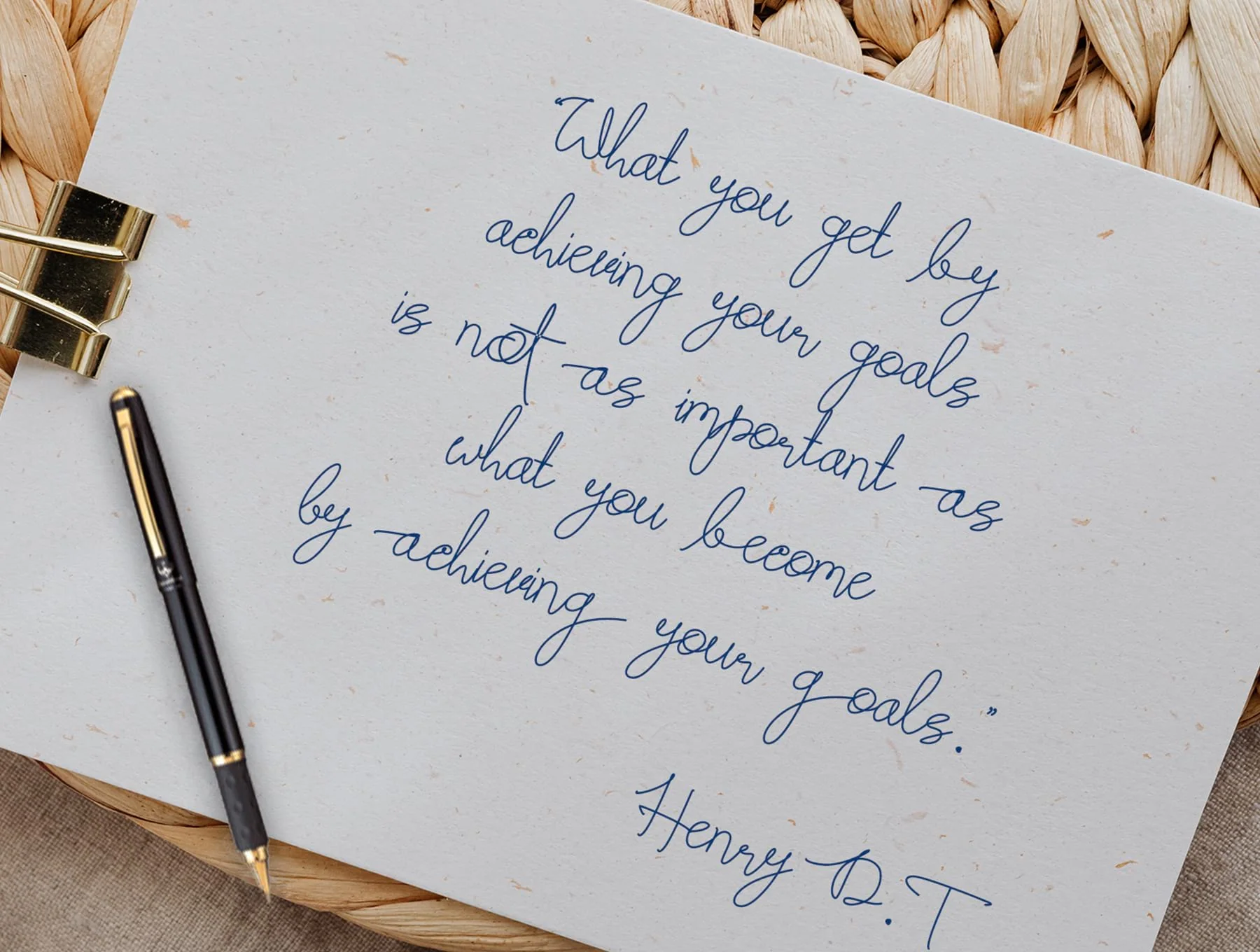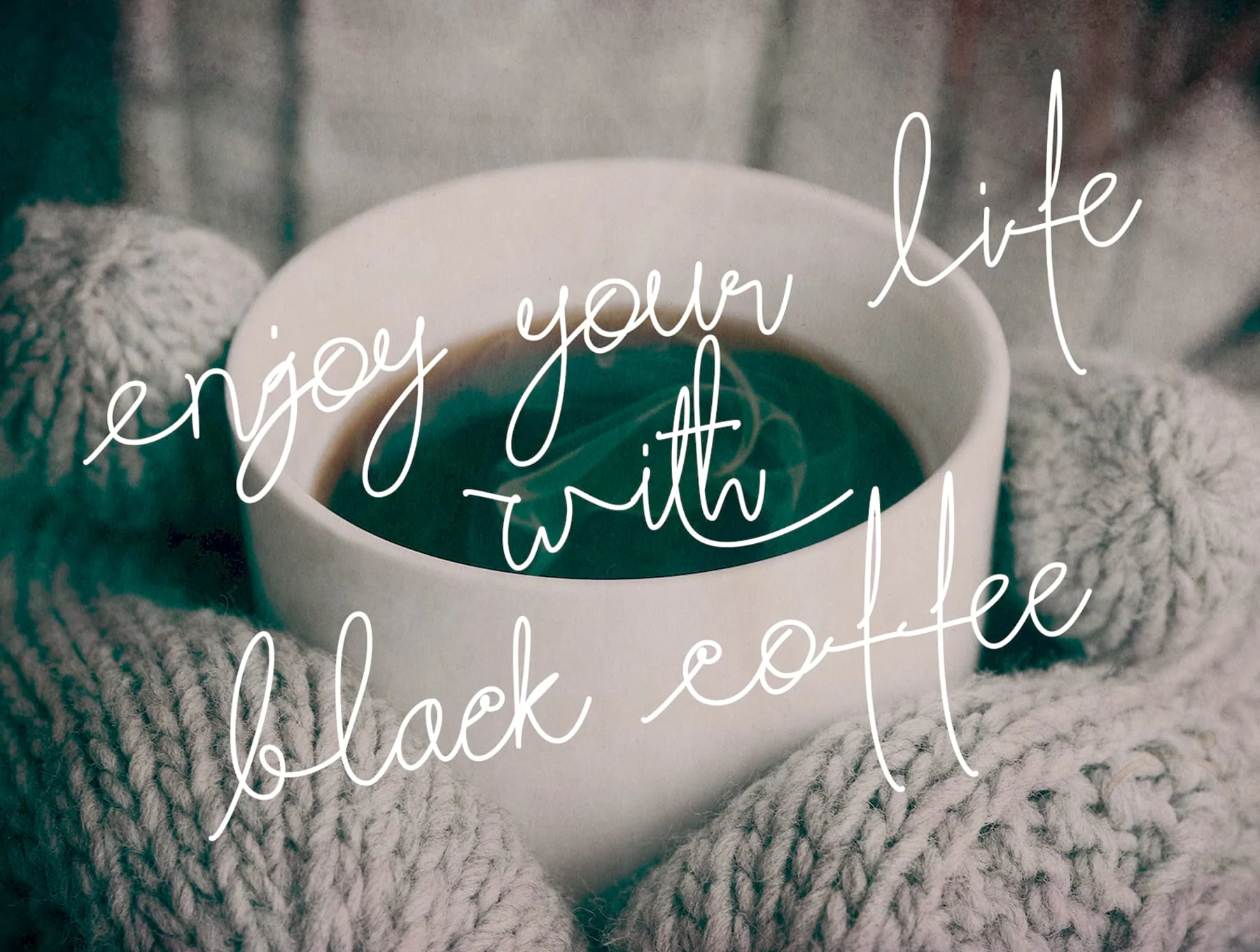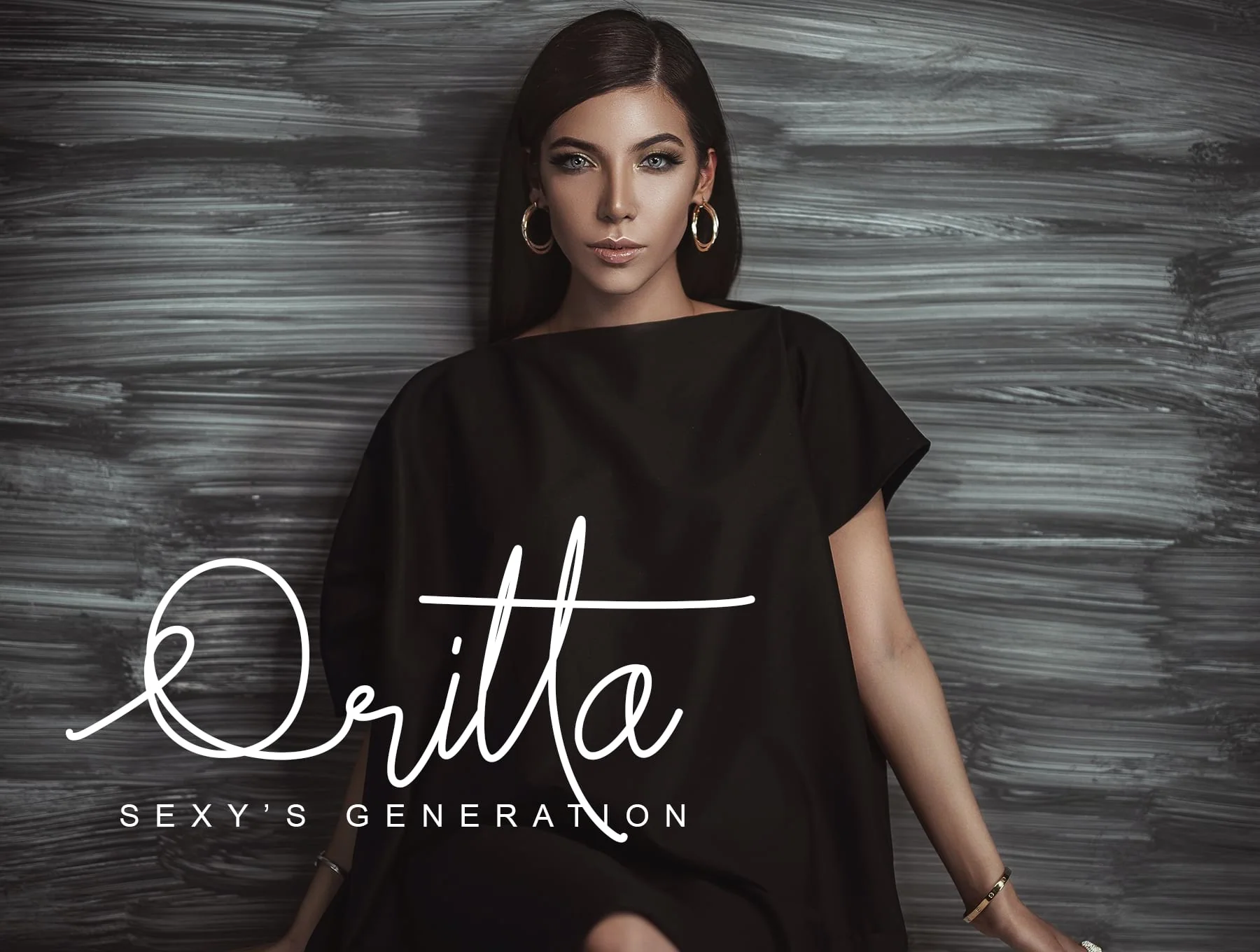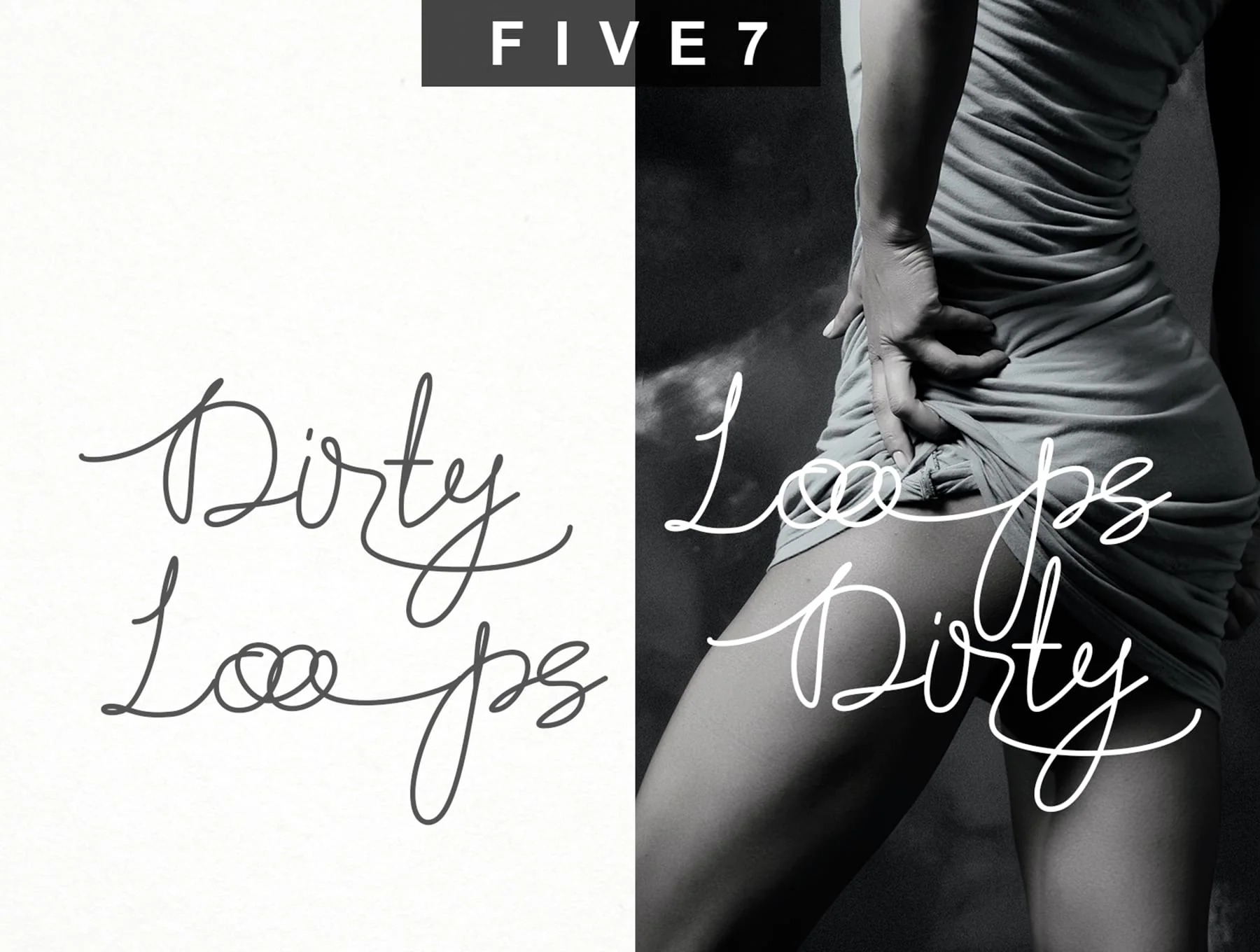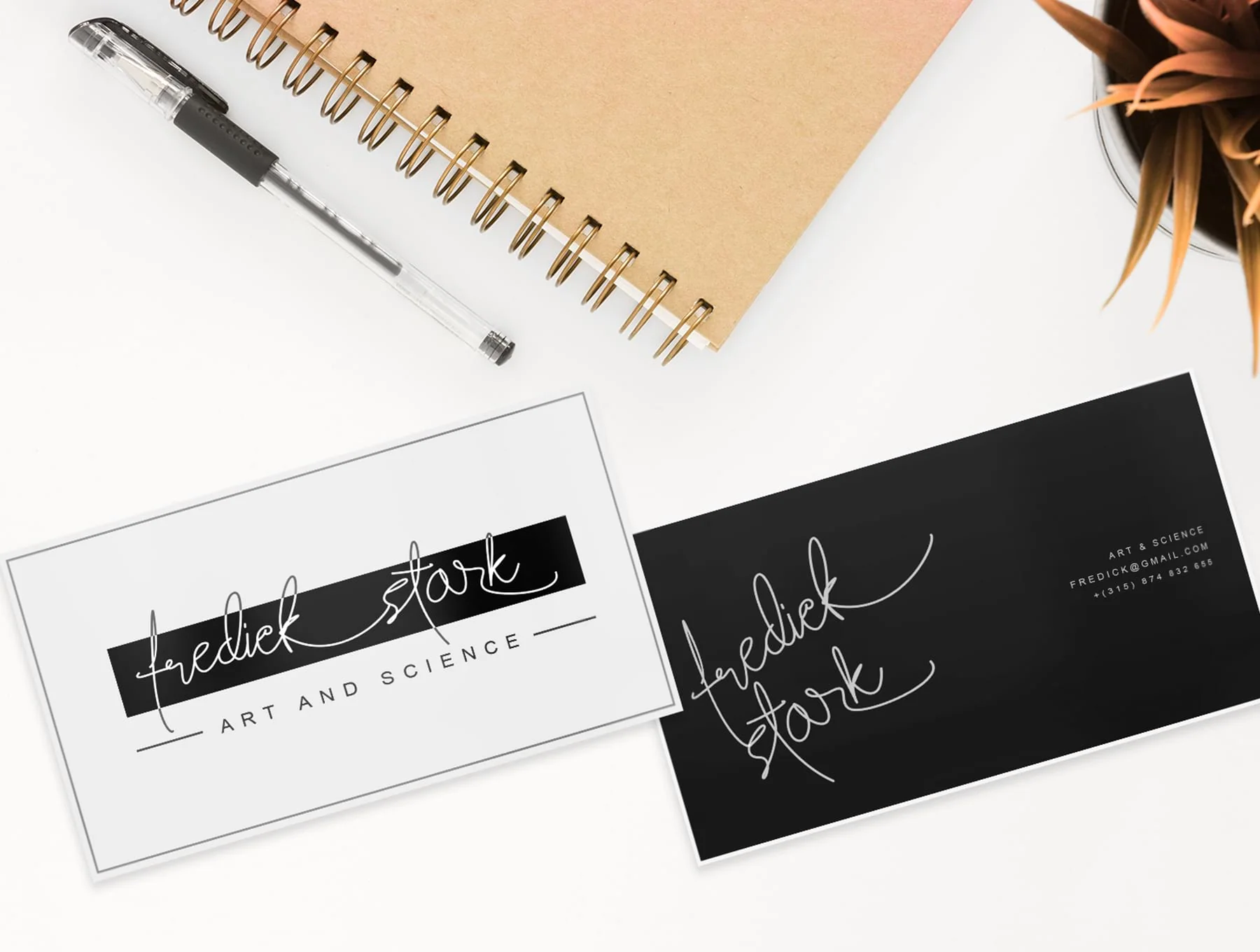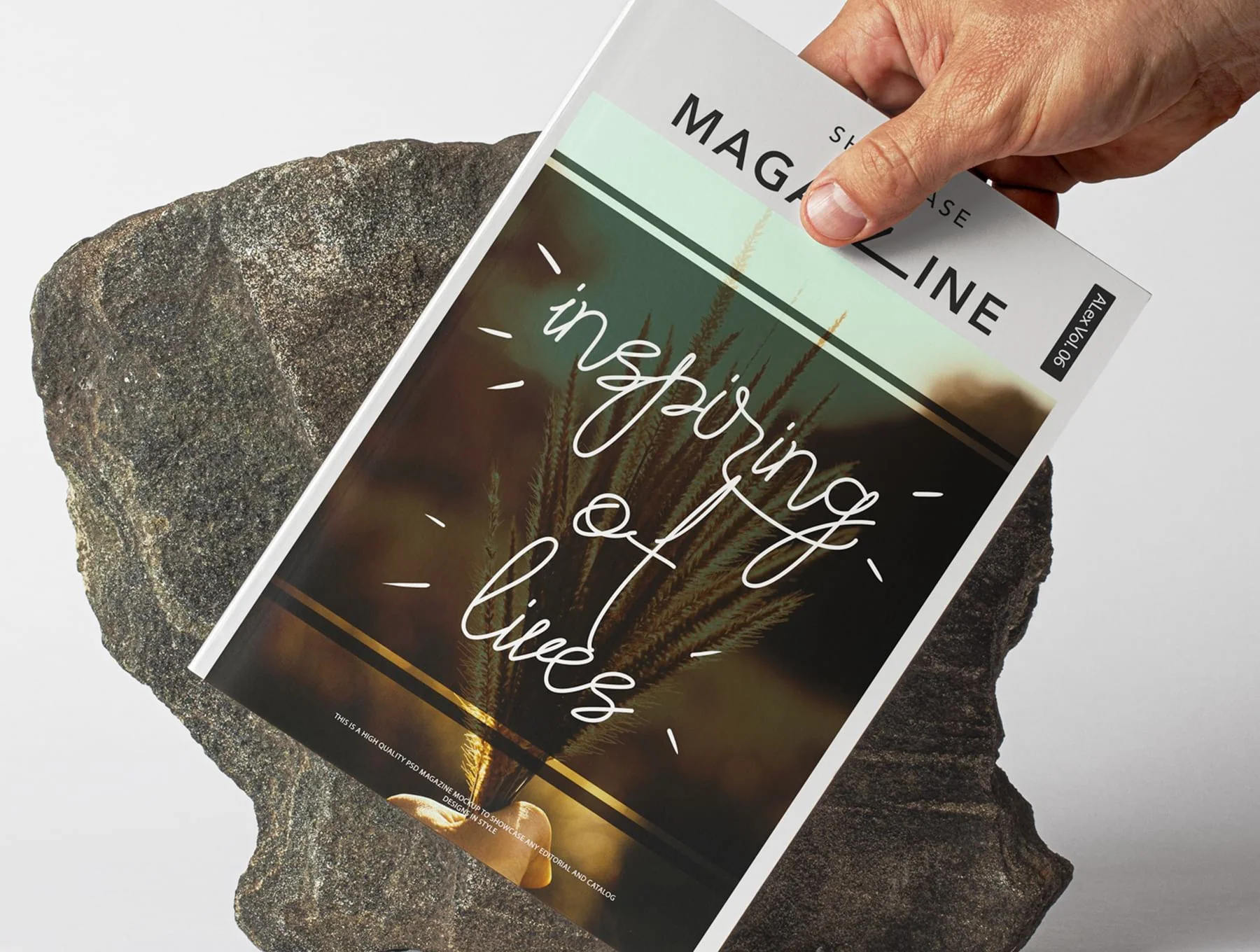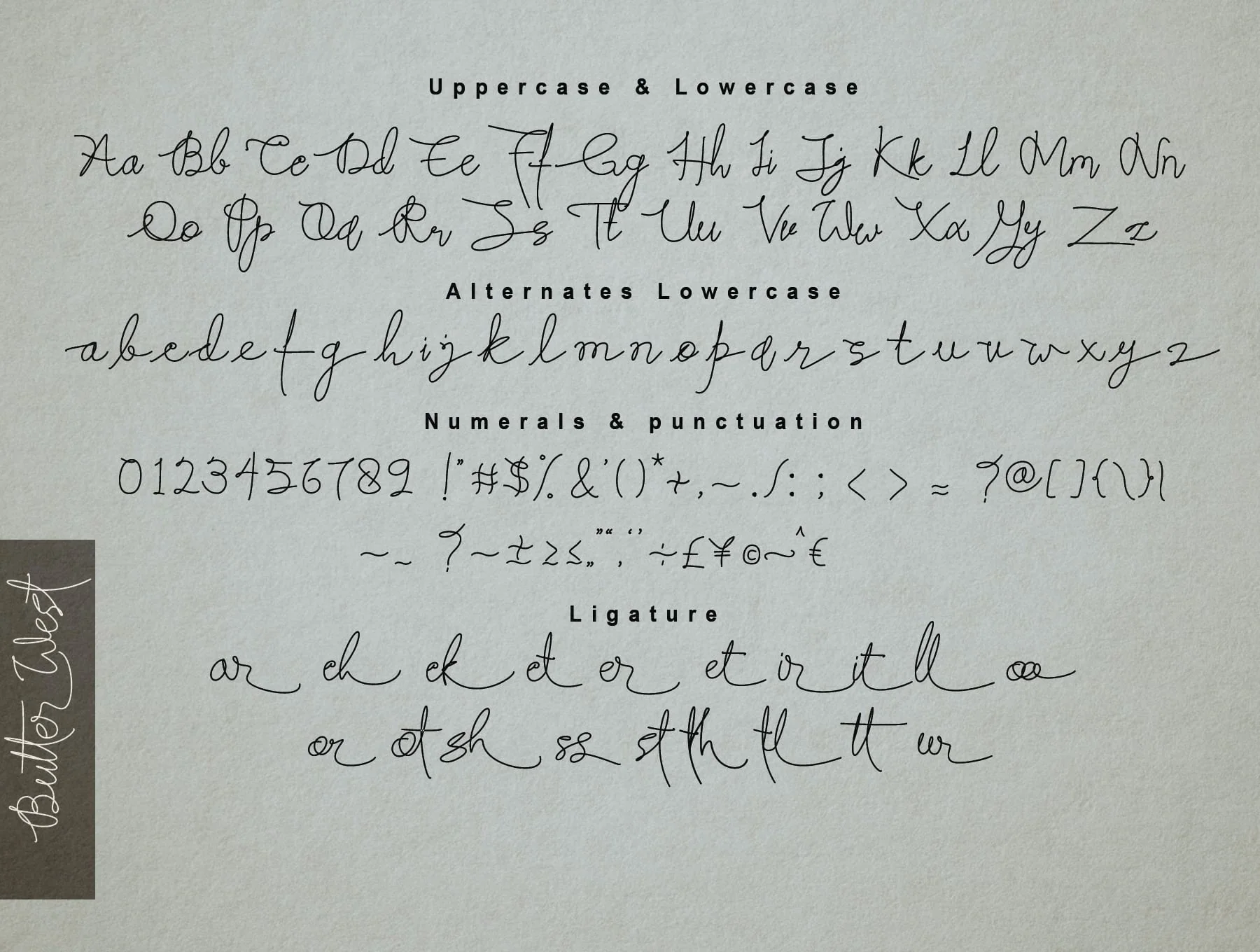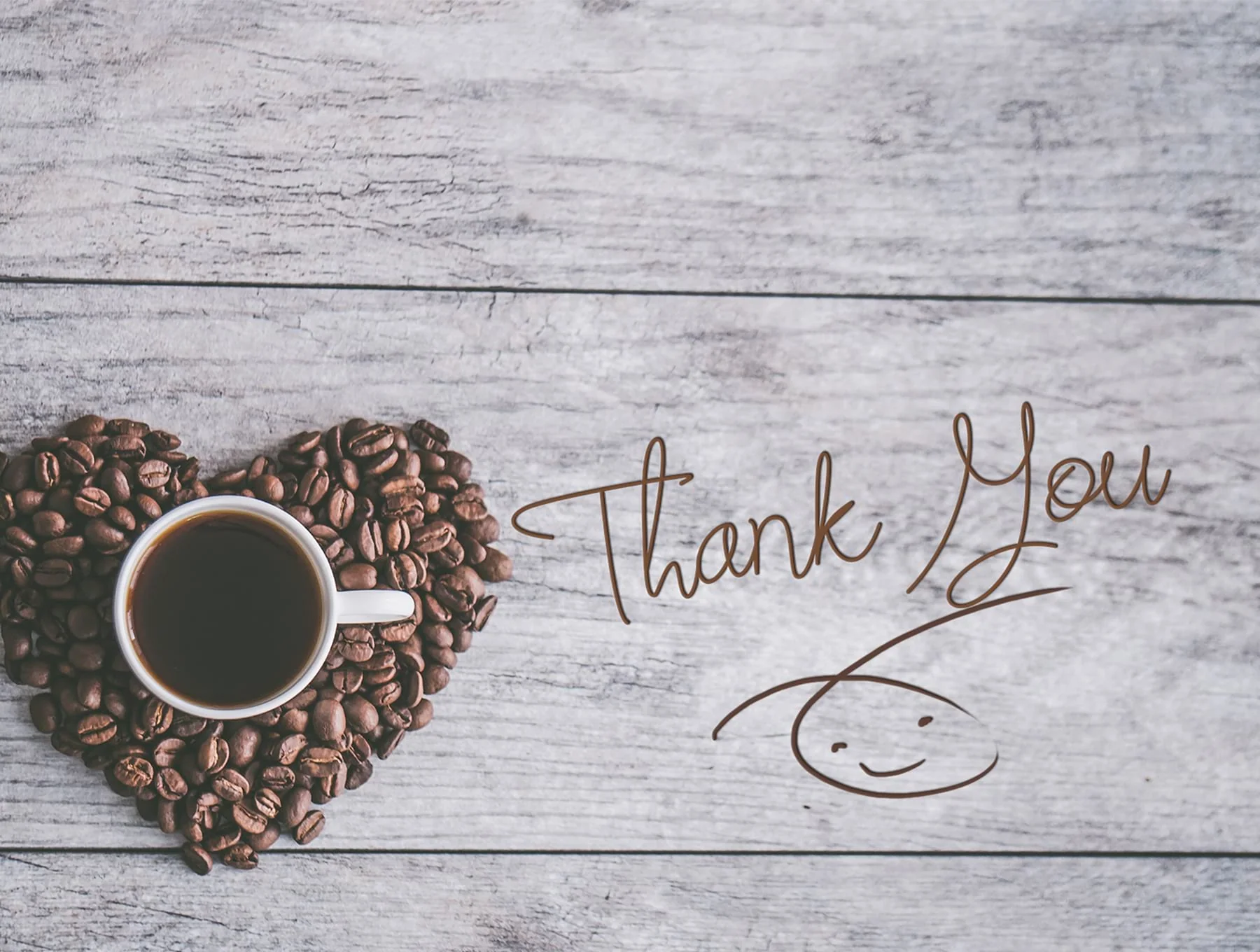
Butter West | Signature Script Font
Hand-drawn script typeface
Complete uppercase and lowercase alphabet
Butter West is a chic contemporary font with an organic handwritten script style, adding refined elegance to your creative work. Ideal for quotes, social posts, ads, magazines, book covers, packaging, labels, stickers, photography, invitations, business cards, stationery, and other designs needing a hand-drawn feel. Includes OTF, TTF, and WOFF files.